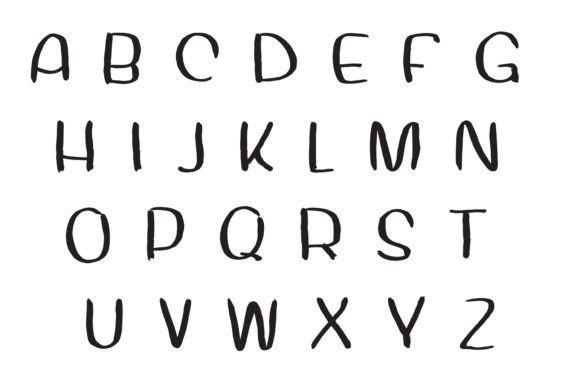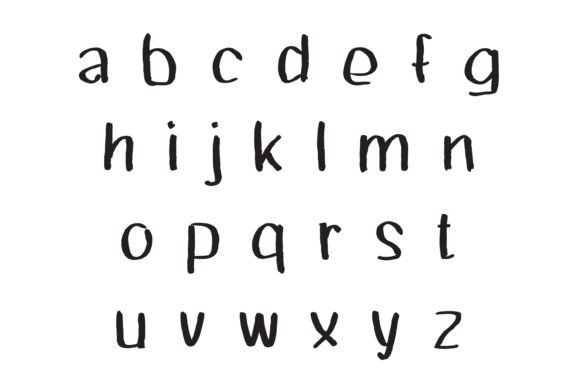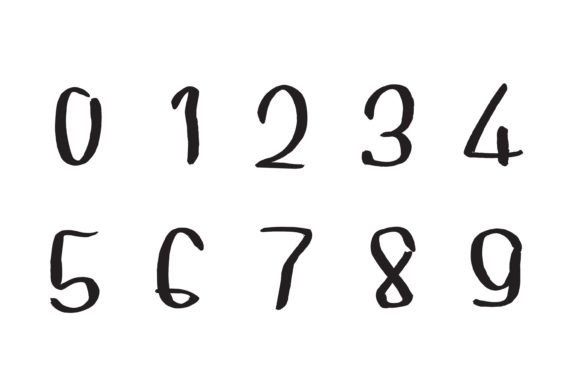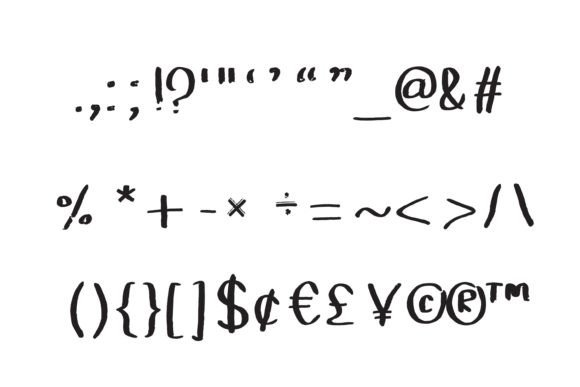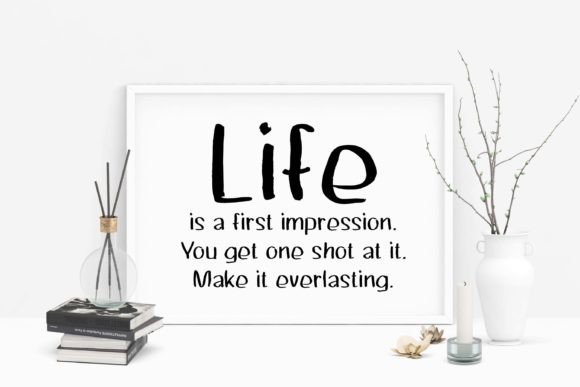
The Sweet Charm of Bellow Font: Adding Whimsy to Your Designs
Have you ever sat at your desk, staring at a blank page, trying to conjure up the perfect font to match the vibe of your latest project? It’s a moment we’ve all been in – the creative block, the blank slate, the endless possibilities. And then, suddenly, it hits you: the perfect font to bring your design to life.
Meet Bellow Font, a delightful handwritten font that exudes sweetness and cuteness, perfect for informal text and quotes on products like mugs or shirts. Its relaxed theme makes it an ideal choice for designers looking to add a touch of whimsy to their designs. With Bellow Font, you can create designs that are both fun and endearing, making it a valuable addition to any designer’s toolkit.
Bellow Font Key Features
- Unique Characteristics: Bellow Font features a distressed, vintage aesthetic with a mix of serif and sans-serif elements, making it suitable for creative and artistic projects.
- Character Set: Bellow Font includes a wide range of characters, including uppercase and lowercase letters, numbers, punctuation marks, and special characters.
- Language Support: Bellow Font supports multiple languages, including English, Spanish, French, German, Italian, and many others.
- Font Weight and Style: Bellow Font comes in various font weights and styles, including bold, italic, and regular, allowing for flexibility in design and layout.
Bellow Font Review
I recently had the chance to work with the Bellow Font, and I must say, it’s a fascinating typeface. Here are my thoughts on what works well and what doesn’t.
- The Bellow Font has a unique, bold personality that’s perfect for headings and titles.
- The font is highly customizable, allowing you to adjust the weight, spacing, and even the overall feel to suit your design needs.
- The font family includes a wide range of styles, from light to bold, giving you plenty of options for different design applications.
- The font can be quite difficult to read at small sizes, especially in body text. This might be a concern for designers who need to use it for large blocks of text.
- The font’s boldness can sometimes make it feel overwhelming, especially when used extensively throughout a design.
- The font family could benefit from more OpenType features, such as ligatures and swashes, to enhance its overall usability.
Overall, the Bellow Font is a great choice for designers who want to add a touch of boldness and personality to their designs. While it has some limitations, its unique character and high level of customization make it a great option for a wide range of design applications.
The Bellow Font is commonly used for:
- Emphasizing important information
- Creating a sense of drama or excitement